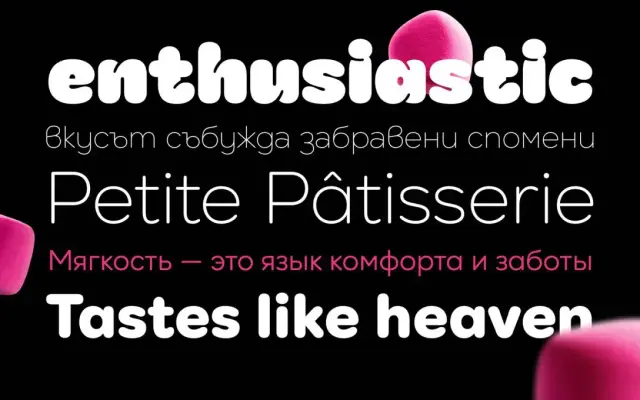
Nexa Round
Fontfabric · Ivelina Martinova
A rounded companion to Fontfabric's Nexa, softening its geometric construction across eleven weights from Thin to an Ultra Black Glow variant.
Designed by Ivelina Martinova, Nexa Round takes the geometric structure of the original Nexa and introduces rounded terminals throughout, producing a warmer character while retaining the same underlying proportions. The family runs eleven styles, with the first nine weights mirroring Nexa directly for straightforward pairing, and the Ultra and Glow cuts added as display-weight variants exclusive to this family. Extended Latin and Cyrillic coverage with OpenType ligatures and contextual alternates makes it workable across branding, packaging and digital applications.
A rounded geometric sans derived from Fontfabric's Nexa, with softened terminals applied across a multi-weight family. The geometric construction and circular forms place it firmly in the geometric sans tradition.